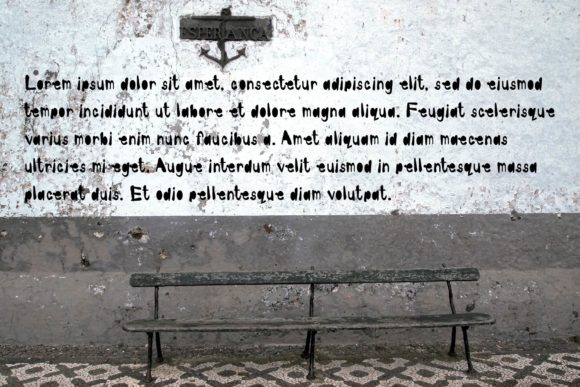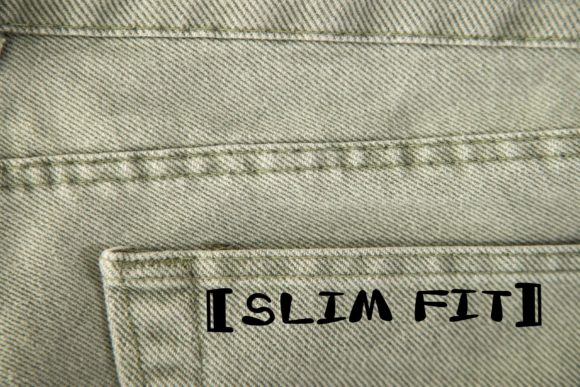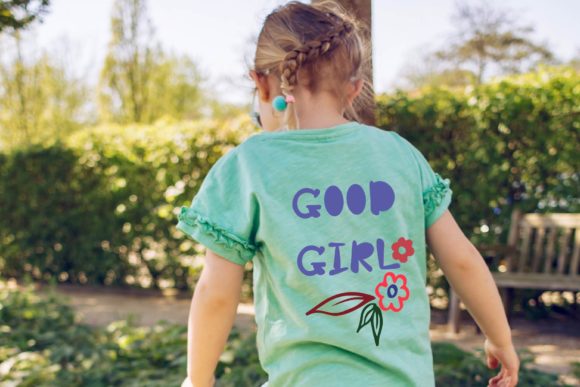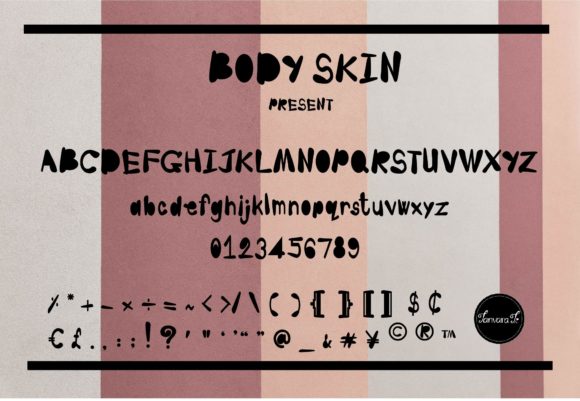
Introducing Body Skin Font: The Cute and Casual Display Font for Creative Projects
Are you a designer, crafter, or DIY enthusiast looking for a font that can add a touch of friendliness and playfulness to your creative projects? Look no further than Body Skin Font! This adorable display font is perfect for anyone who wants to turn their ideas into a true piece of art. In this article, we’ll dive into the features and benefits of Body Skin Font, and explore how it can elevate your designs, Instagram posts, and DIY projects.
What is Body Skin Font?
Body Skin Font is a cute and casual display font that exudes an incredibly friendly feel. Its unique design makes it perfect for a wide range of creative projects, from social media posts to craft projects, and even commercial designs. With Body Skin Font, you can add a personal touch to your work and make it stand out from the crowd.
Key Features of Body Skin Font
- Cute and Casual Design: Body Skin Font has a playful and informal design that’s perfect for creating friendly and approachable content.
- Display Font: This font is specifically designed to make a statement, making it ideal for headings, titles, and captions.
- Friendly Feel: The font’s unique design elements give it a warm and welcoming feel that’s sure to engage your audience.
- Versatile: Body Skin Font can be used for a wide range of creative projects, from Instagram posts to DIY crafts, and even commercial designs.
Perfect for Instagram and Social Media
In today’s digital age, having a strong online presence is crucial. With Body Skin Font, you can create stunning Instagram posts and social media content that will grab the attention of your followers. Whether you’re a blogger, influencer, or business owner, this font is perfect for creating engaging and shareable content.
Ideal for DIY Projects and Crafting
If you’re a crafter or DIY enthusiast, you’ll love Body Skin Font! This font is perfect for creating handmade cards, gift tags, and other craft projects. With its friendly and playful design, you can add a personal touch to your creations and make them truly special.
Benefits of Using Body Skin Font
- Easily Readable: Despite its playful design, Body Skin Font is easy to read, making it perfect for creating content that needs to be understood quickly.
- Customizable: You can use Body Skin Font for a wide range of projects, from digital designs to print materials.
- Time-Saving: With Body Skin Font, you can create stunning content quickly and easily, saving you time and effort.
- Unique Designs: This font allows you to create unique and eye-catching designs that will stand out from the crowd.
- Create stunning Instagram posts and social media content
- Design handmade cards and gift tags
- Make custom banners and signs
- Create eye-catching logos and branding materials
Body Skin Font is a versatile and adorable display font that’s perfect for designers, crafters, and DIY enthusiasts. With its friendly and playful design, you can add a personal touch to your creative projects and make them truly special. Whether you’re looking for fonts for Instagram or calligraphy scripts for DIY projects, Body Skin Font is the perfect choice. So why wait? Download Body Skin Font today and start creating stunning content that will engage and delight your audience!